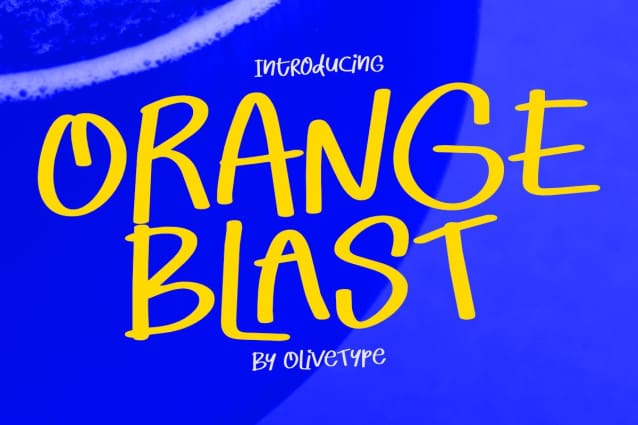
Orange Blast Font
Orange Blast Font, a playful handwritten display font that can make your designs pop! With its bold and dynamic strokes, this font is perfect for adding a playful yet professional touch to any project. Whether you’re designing logos, posters, or social media graphics, OrangeBlast delivers a burst of creativity that captivates and engages your audience.
Orange Blast contains 207 glyphs. Supporting more than 66 languages, which include: Afrikaans Albanian Catalan Danish Dutch English Estonian Finnish French German Italian Norwegian Portuguese Spanish Swedish Zulu, and more.